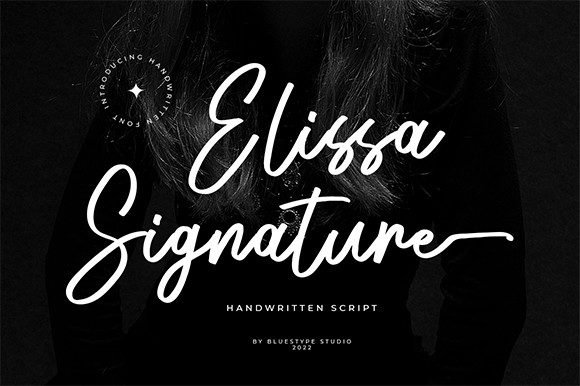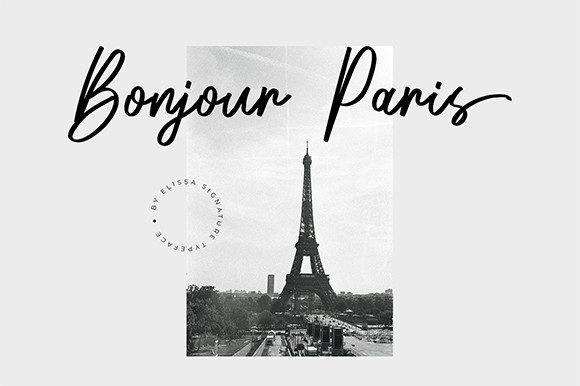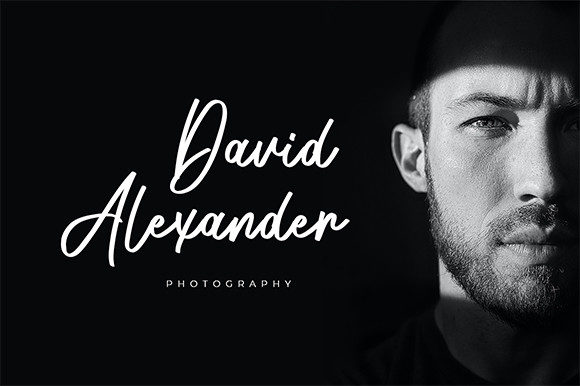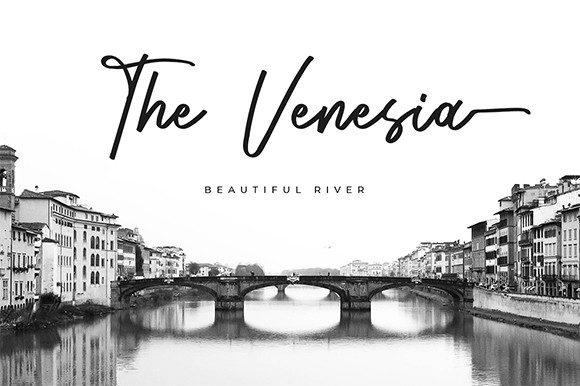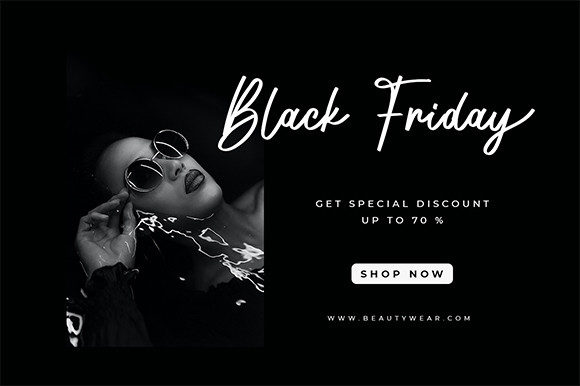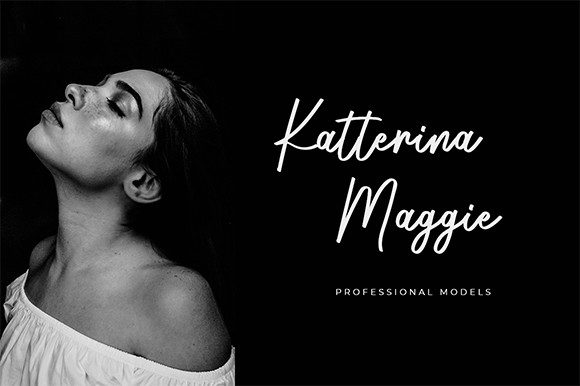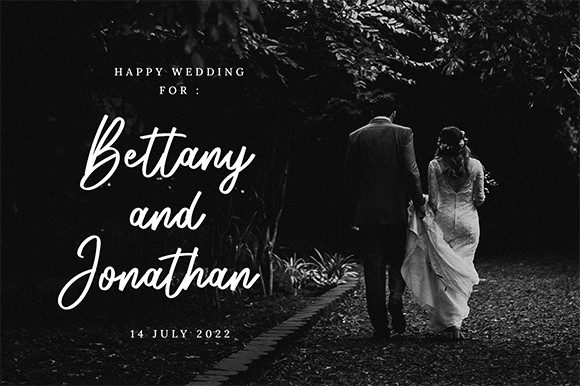
Unlock the Authentic Touch with Elissa Signature Font
There’s something magical about signing your name to a beautiful piece of artwork or a heartfelt letter – it’s a personal touch that sets your creation apart. For designers, this moment of authenticity is what makes a project truly special. And that’s exactly what the Elissa Signature Font is all about.
This sweet script typeface is designed to add a personal, legible touch to any design project. Whether you’re working on photography, business cards, weddings, or fashion designs, the Elissa Signature Font is the perfect companion. Its authenticity vibes make it an invaluable tool for designers who want to create unique and memorable designs. With the Elissa Signature Font, you can add a personal touch to your work that will leave a lasting impression.
Elissa Signature Font Key Features
- Font Style: Elegant, cursive script with a touch of sophistication and femininity.
- Unique Characteristics: Features swashes, flourishes, and connecting strokes, making it perfect for signatures, quotes, and watermarks.
Review of Elissa Signature Font
Overall, I’m quite impressed with the Elissa Signature Font. It’s a beautiful, elegant script that would be perfect for wedding invitations, event branding, or any project that requires a touch of sophistication.
- ✨ The font is highly customizable, with a wide range of style options available, from cursive to bold.
- ✨ The font is highly legible, even at smaller font sizes, making it perfect for invitations and other printed materials.
- ✨ The font comes with a variety of ligatures and swashes, which adds a touch of elegance to any project.
However, there are some limitations:
- ⚠️ The font may not be suitable for digital use, as it can be quite thin and may not display well on all devices.
- ⚠️ The font may require some adjustment to work well with certain font combinations, so be sure to test it out before using it in a project.
Overall, I’d give the Elissa Signature Font 4.5 out of 5 stars. While it may have some limitations, it’s a beautiful and elegant font that’s perfect for projects that require a touch of sophistication. With some careful customization and testing, it can be a great addition to any designer’s toolkit.
Getting the Most Out of Elissa Signature Font
For best results, use Elissa Signature Font in conjunction with a clean and simple design. This will help to create a professional and polished look. Experiment with different font sizes, colors, and combinations to find the perfect fit for your design.
Elissa Signature Font is perfect for creating professional-looking business cards, letterheads, and social media graphics. It’s also great for adding a touch of elegance to your wedding invitations, party invitations, and other special occasion materials.